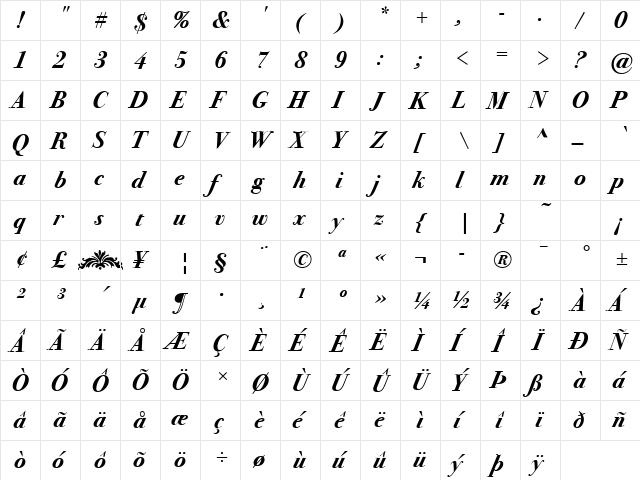
Bodoni SvtyTwo ITC TT BoldIta
Design Context for Bodoni SvtyTwo ITC TT Typeface
Bodoni SvtyTwo ITC TT is a composed and adaptable typeface that performs quietly and consistently across a wide range of design contexts. The heavy weight commands attention and anchors typographic hierarchies.